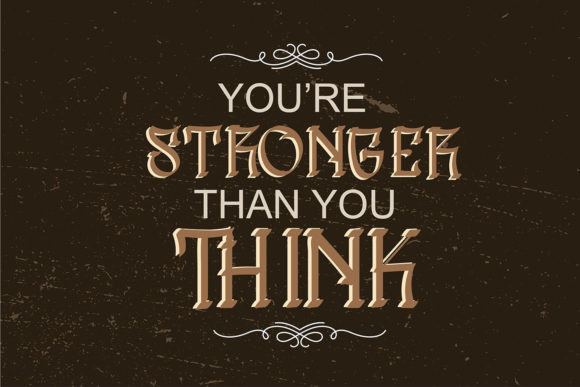
Bigwall Font
Bigwall is a retro, imposing and distinct serif font. Masterfully designed to become a true favorite, this font has the potential to bring each of your creative ideas to the highest level! Dark Blade is PUA encoded which means you can access all of the glyphs and swashes with ease!